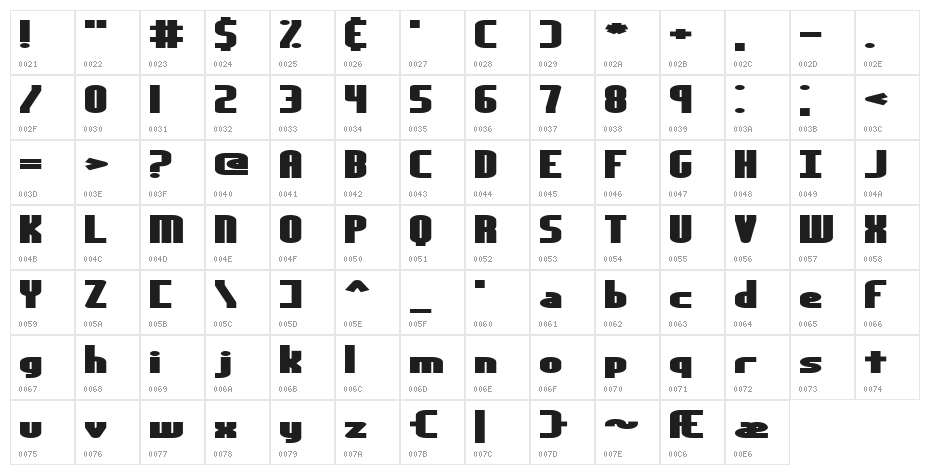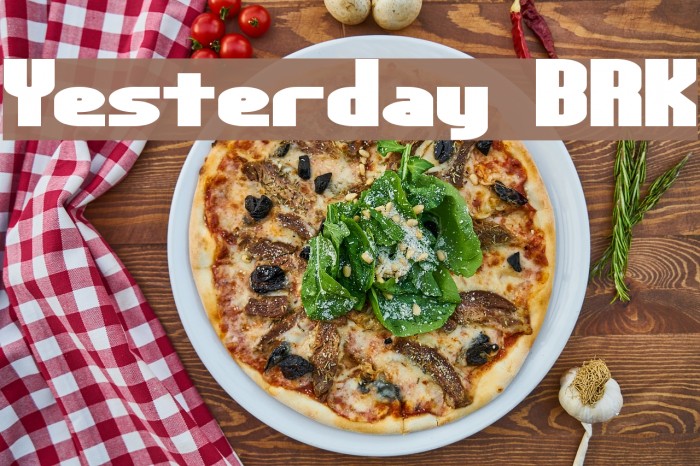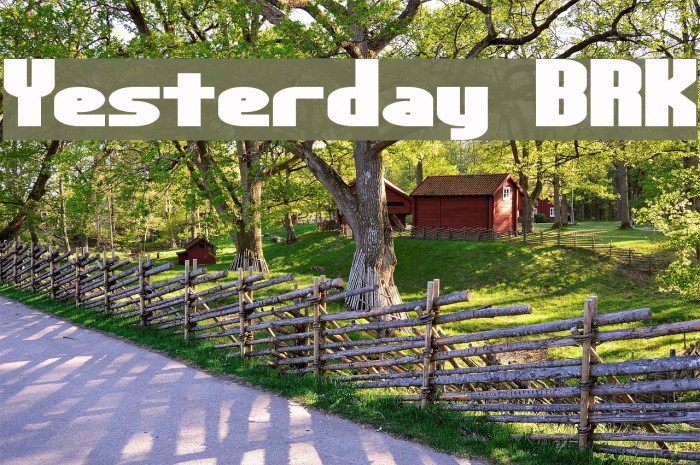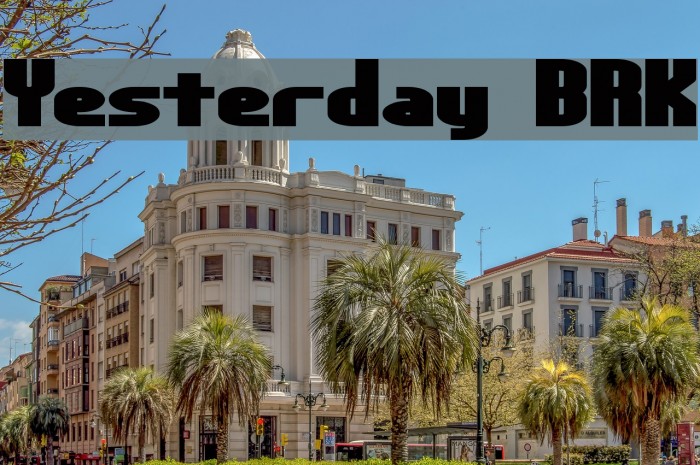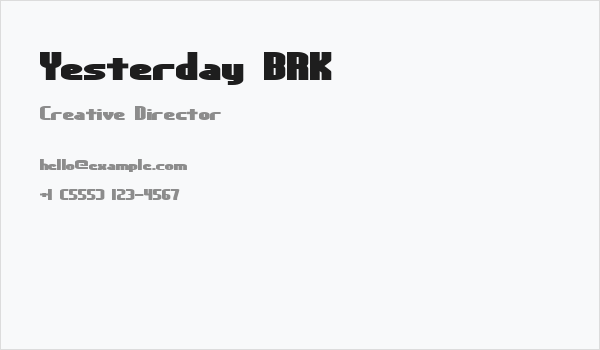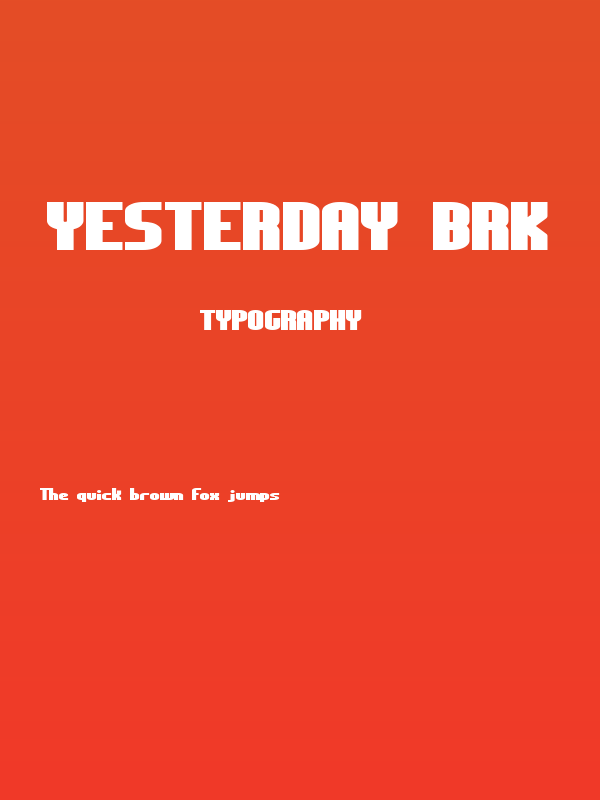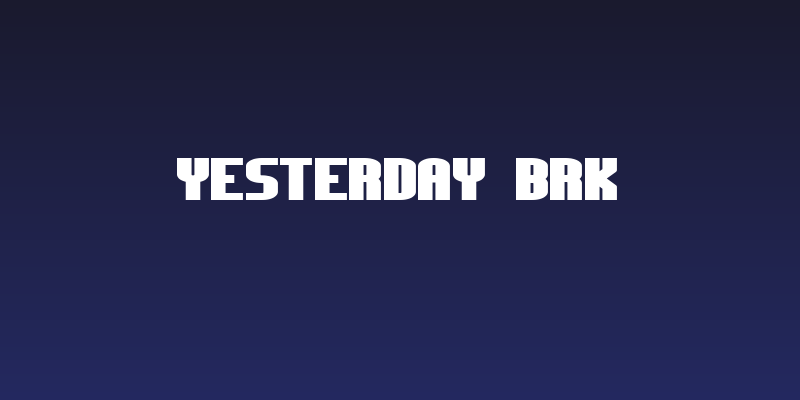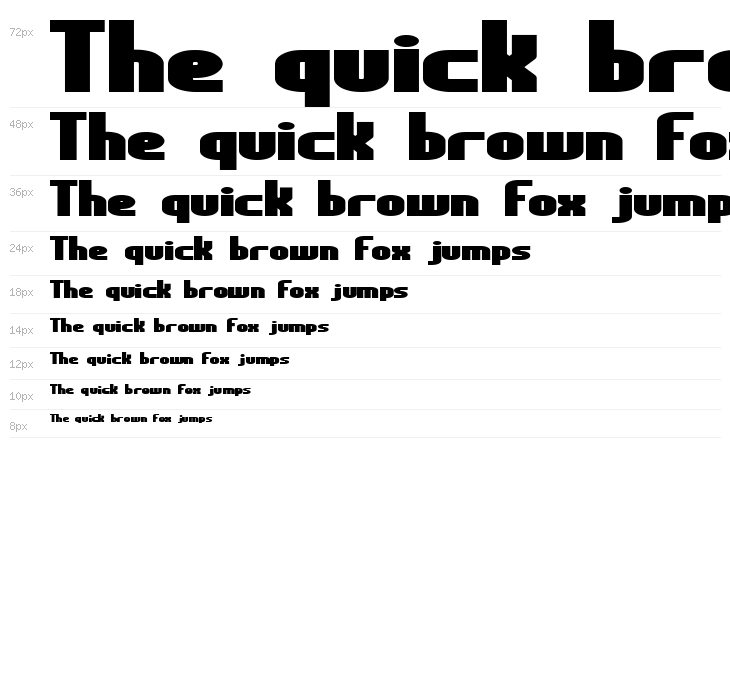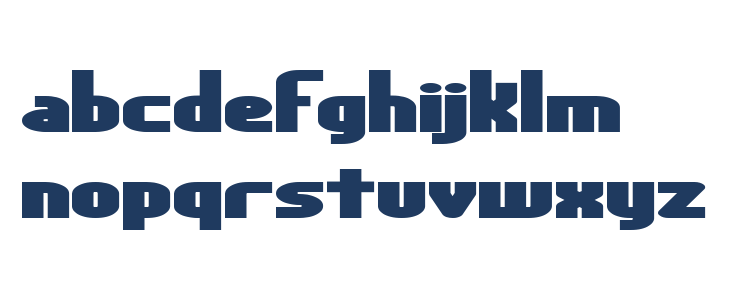
Yesterday BRK Font
Yesterday BRK Description
This bold and striking font features a geometric and blocky design, characterized by its thick, uniform strokes and minimal contrast. The uppercase letters are particularly wide and imposing, while the lowercase letters maintain a consistent weight and width, creating a cohesive look. The numerals are equally bold, ensuring visibility and impact. Special characters are designed with the same boldness, making them stand out. This font's strong presence makes it ideal for attention-grabbing designs.
| Proposed Projects | Ideal for posters, headlines, logos, and any design requiring a strong visual impact. |